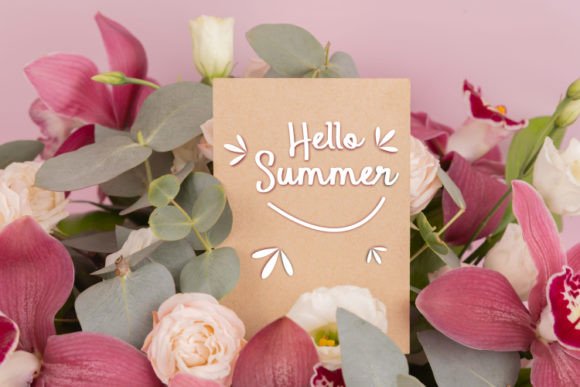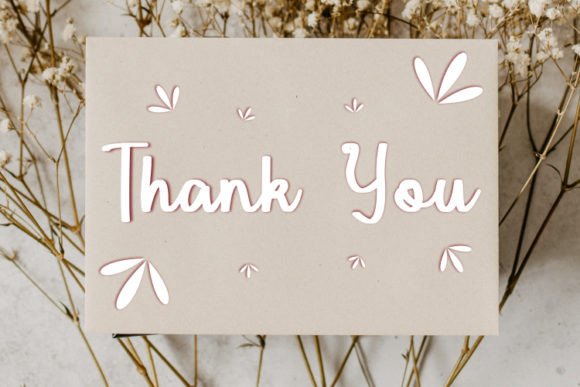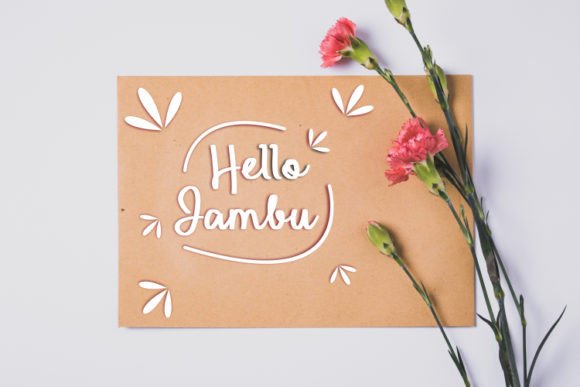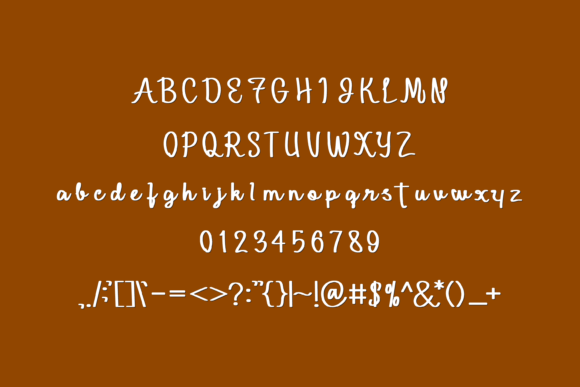
Introduction to Hombati Font
Have you ever been working on a creative project, and the right font just eludes you? You’ve scoured the internet for the perfect match, but nothing seems to capture the essence of your vision. That’s where the Hombati Font comes in – a delightful, handwritten font that’s sure to bring your designs to life.
Whether you’re a seasoned designer or a crafty enthusiast, the Hombati Font is a valuable resource that’s waiting to be discovered. Its charming, cursive script is perfect for adding a personal touch to your work, from digital designs and presentations to greeting cards and more.
Key Features of Hombati Font
- High-quality design resource ideal for creative projects requiring a modern and sleek aesthetic.
- Unique characteristics include a clean and minimalist design, making it perfect for use in logos, branding, and digital interfaces.
Honest Review: Hombati Font
As a designer, I’m always on the lookout for high-quality design resources that can elevate my creative projects. Recently, I stumbled upon the Hombati Font, and I must say, it’s been a game-changer for my design workflow. ✨
The Hombati Font is a free download that offers a clean and modern aesthetic, perfect for a wide range of design applications. I particularly love its versatility, as it works well with both transparent backgrounds and solid colors. The font’s high-quality design ensures that it renders beautifully on various screens and devices.
Here are some of the key features that I appreciate about the Hombati Font:
While the Hombati Font is an excellent design resource, there are a few limitations to be aware of: ⚠️
- Only available in a single weight, which may limit its use in certain design applications
- No italic or bold variants available, which may restrict its use in certain contexts
Overall, I’m impressed with the Hombati Font, and I highly recommend it to fellow designers looking for a high-quality, free design resource. With its clean design and versatility, it’s an excellent addition to any design library. ✨
Hombati Font is a high-quality, free download design resource ideal for creative projects. Its unique style and versatility make it a valuable addition to any design arsenal.
Hombati Font is perfect for a variety of projects, including logos, business cards, brochures, and social media graphics. Its versatility makes it a great choice for designers of all levels.